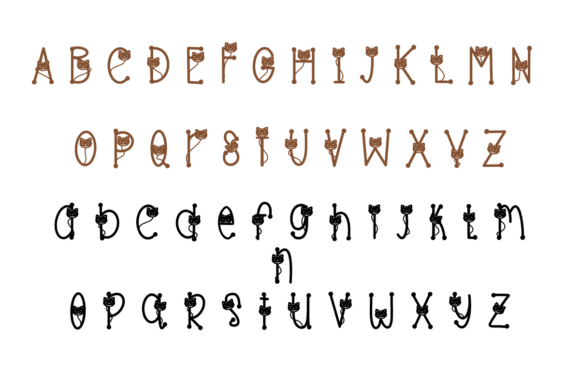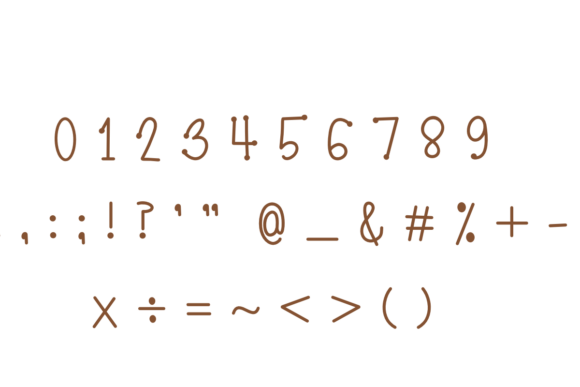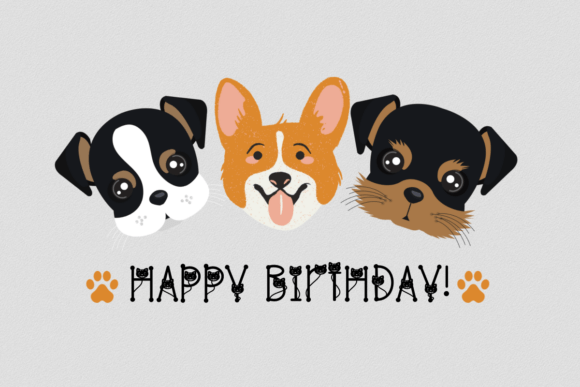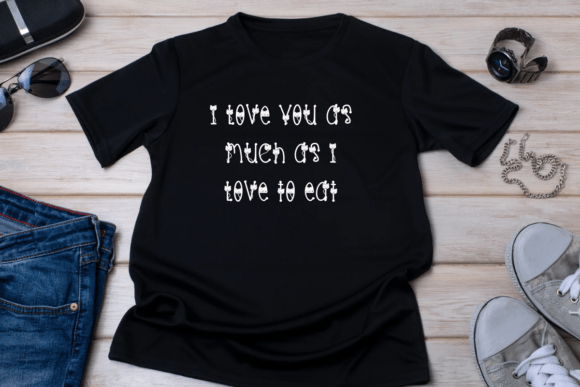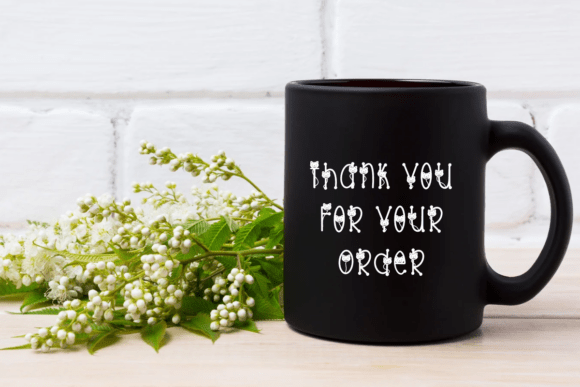
The Purrfect Font: How Cat Funny Stole My Heart
I still remember the design project that led me to discover Cat Funny. I was working on a children’s book, and my client requested a font that was playful, fun, and engaging. I had spent hours scouring the internet for the perfect font, but nothing seemed quite right. That was when I stumbled upon Cat Funny, and it instantly brought a smile to my face. With its whimsical letterforms and quirky details, I knew I had found the perfect fit.
What I Love About Cat Funny
- ✨ The playful, hand-drawn feel that makes it perfect for children’s designs and fun branding
- ✅ The font’s lighthearted energy, which brings joy and creativity to any project
- 🎉 The quirky details and stylistic alternates that add a touch of mischief to your designs
- 💕 The cute and cheerful vibe that makes it ideal for greeting cards and invitations
While Cat Funny is an amazing font, there are a few things to keep in mind:
- 🤔 The font can be a bit tricky to read at smaller sizes, so it’s best used for headlines or titles
- ⚠️ Some of the more intricate details may not display well on certain devices or platforms
The Story Behind Cat Funny
Cat Funny was designed by a talented type designer who wanted to create a font that would bring joy and playfulness to any project. Inspired by the whimsical world of children’s books and cartoons, Cat Funny is the perfect blend of fun and creativity. Whether you’re designing for kids or just want to add a touch of whimsy to your work, Cat Funny is the perfect choice.
Q: What is Cat Funny font?
A: Cat Funny is a decorative font with a playful, hand-drawn feel and whimsical letterforms.
Q: Is Cat Funny suitable for body text?
A: While Cat Funny is a beautiful font, it’s best used for headlines or titles. It can be a bit tricky to read at smaller sizes.